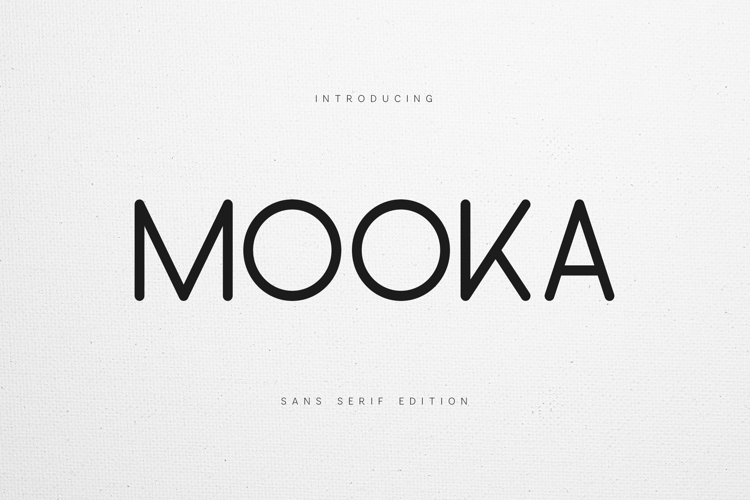
Mooka Modern Clean Sans Serif Font
Mooka is a clean and modern sans serif typeface designed for clarity, versatility, and contemporary design. Built with smooth geometric shapes and balanced proportions, this font delivers a minimal and professional aesthetic perfect for modern creative projects.
The design focuses on simplicity, readability, and visual harmony, making it ideal for branding, editorial layouts, digital interfaces, and typography-driven designs. Mooka works beautifully for both large headlines and smaller body text, maintaining a clean and polished appearance across different sizes.
Its modern structure and neutral personality allow designers to use it in a wide range of creative fields, from tech branding and startups to lifestyle brands, packaging, and modern advertising.
With full uppercase and lowercase characters, numerals, punctuation, and multilingual support, Mooka is ready for international design projects across both print and digital environments.
Mooka delivers clean typography with a modern attitude, making it a versatile addition to any designer’s font collection.